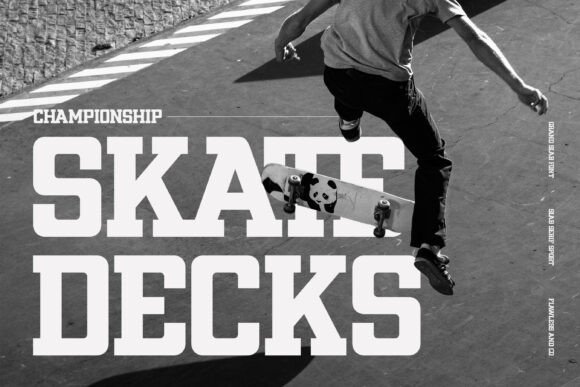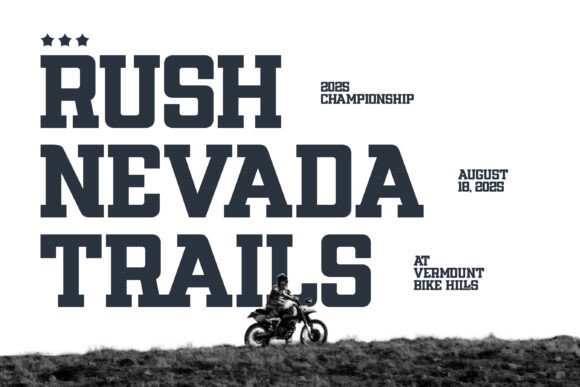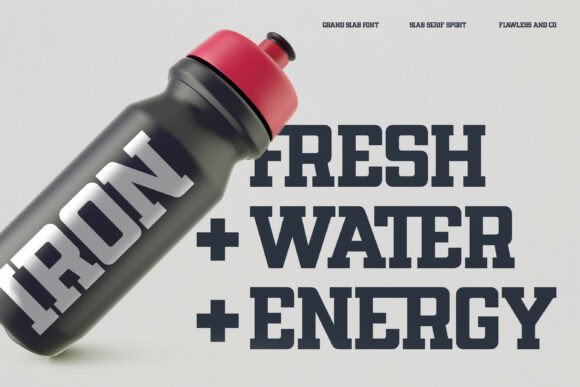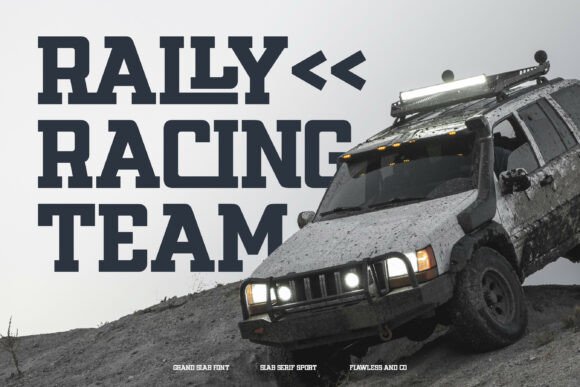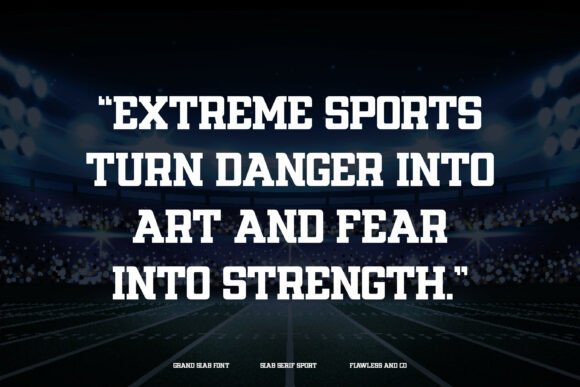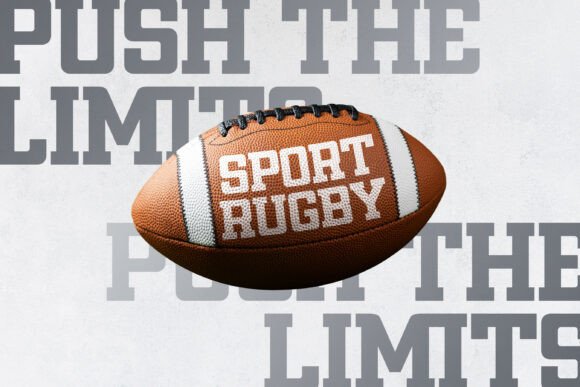
Introducing Grand Slab Font: Unleash the Power of Athletic Typography
In the world of sports branding, a bold and powerful font can make all the difference. Imagine a typeface that embodies the energy, strength, and determination of athletic performance. Look no further than Grand Slab Font, a stunning slab serif font designed to capture the essence of competition and victory.
The Power of Grand Slab
Grand Slab is more than just a font – it’s a statement. With its strong slab serifs, solid structure, and commanding presence, this font delivers impact and authority in every design. Whether you’re creating a logo, poster, or branding materials for a sports team, Grand Slab is the perfect choice. Its bold and rugged appearance instantly conveys a sense of grit and intensity, making it perfect for sports-related designs.
Designed for Sports Branding
Grand Slab Font is specifically designed for sports branding, dynamic posters, and statement logos. Its versatility and style make it an excellent choice for designers and crafters looking to create visually stunning designs that capture the spirit of competition. From team logos and jerseys to advertising materials and event posters, Grand Slab is the perfect font to make your designs stand out.
PUA-Encoded for Effortless Customization
Grand Slab font is PUA-encoded, ensuring effortless access to all glyphs, swashes, and alternate characters. This means you can customize your creations with ease, adding your own personal touch to make your designs truly unique. With Grand Slab, you can experiment with different styles and variations, taking your designs to the next level.
Key Features of Grand Slab Font
- Bold and Powerful Design: Grand Slab’s strong slab serifs and solid structure make it perfect for creating eye-catching designs that demand attention.
- Sports-Themed: Specifically designed for sports branding, Grand Slab embodies the energy, strength, and determination of athletic performance.
- PUA-Encoded: Effortlessly access all glyphs, swashes, and alternate characters to customize your designs with ease.
- Versatile and Stylish: Grand Slab is perfect for a wide range of design applications, from logos and posters to branding materials and more.
Why Choose Grand Slab Font?
With Grand Slab Font, you can:
- Create stunning sports branding materials that capture the spirit of competition.
- Design eye-catching posters and flyers that grab attention.
- Develop unique and memorable logos that stand out from the crowd.
- Take your designs to the next level with effortless customization.
Grand Slab Font is a game-changer for designers and crafters looking to create bold and powerful sports-themed designs. With its strong slab serifs, solid structure, and commanding presence, this font delivers impact and authority in every design. Whether you’re a seasoned designer or just starting out, Grand Slab is the perfect choice for anyone looking to unleash the power of athletic typography.
Get Ready to Make Your Mark
Don’t settle for ordinary fonts that fail to make an impact. Choose Grand Slab Font and unleash the power of athletic typography in your designs. With its versatility, style, and effortless customization options, Grand Slab is the perfect choice for anyone looking to create stunning sports branding materials that capture the spirit of competition.